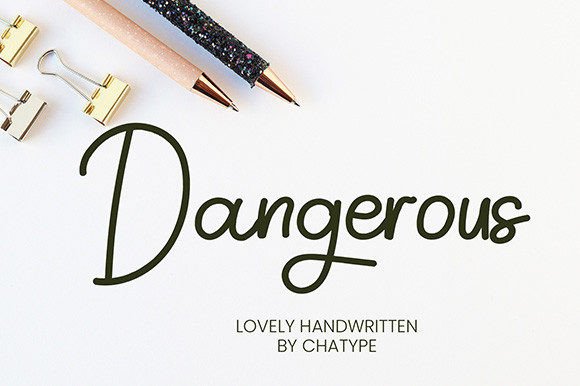
I still remember the frustration of working on a project, hours spent crafting the perfect design, only to be held back by one thing: the font. It was as if my creativity was being suffocated by the limitations of the fonts I had at my disposal. My client wanted something elegant, yet modern; something that would make their brand stand out. I scoured the internet, tried font after font, but nothing seemed quite right. That was until I stumbled upon **Dangerous**, a beautiful script font that changed the game.
First Impressions: A Beautiful Script Font
Dangerous is a stunning script font, perfect for a variety of projects such as quotes, logos, blog headers, posters, ribbons, fashion, clothing, letters, invitations, stationery, and more. Its elegant lines and fluid curves make it an excellent choice for designers, crafters, and creative hobbyists looking to add a touch of sophistication to their work.
- ✨ Elegant and fluid design: The font’s script style is reminiscent of handwritten calligraphy, making it perfect for projects that require a personal touch.
- ✅ Highly versatile: From logos to blog headers, Dangerous can be used in a wide range of applications.
- 💫 Beautifully crafted: The attention to detail in this font is exceptional, with each letter carefully designed to create a cohesive and stylish look.
While Dangerous is an excellent font, there are a few things to keep in mind:
- ⚠️ Legibility at small sizes: Like many script fonts, Dangerous can be challenging to read at very small sizes. It’s best used at larger sizes where its beauty can shine.
- 🤔 Pairing with other fonts: As with any script font, pairing Dangerous with other fonts can be tricky. It’s essential to choose fonts that complement its elegant style.
The Story Behind Dangerous
Dangerous was created with the intention of bringing a touch of elegance and sophistication to designers’ projects. Inspired by the beauty of handwritten calligraphy, the font’s designer aimed to create a versatile and stylish script font that could be used in a variety of applications. The result is a font that is both beautiful and functional, perfect for adding a personal touch to any design.
Q: What type of projects is Dangerous best suited for?
Dangerous is suitable for a wide range of projects, including quotes, logos, blog headers, posters, ribbons, fashion, clothing, letters, invitations, stationery, and more.
Q: Is Dangerous suitable for body text?
Due to its script nature, Dangerous is best used for headlines or short paragraphs. For body text, a more traditional font may be more suitable, especially at smaller sizes.